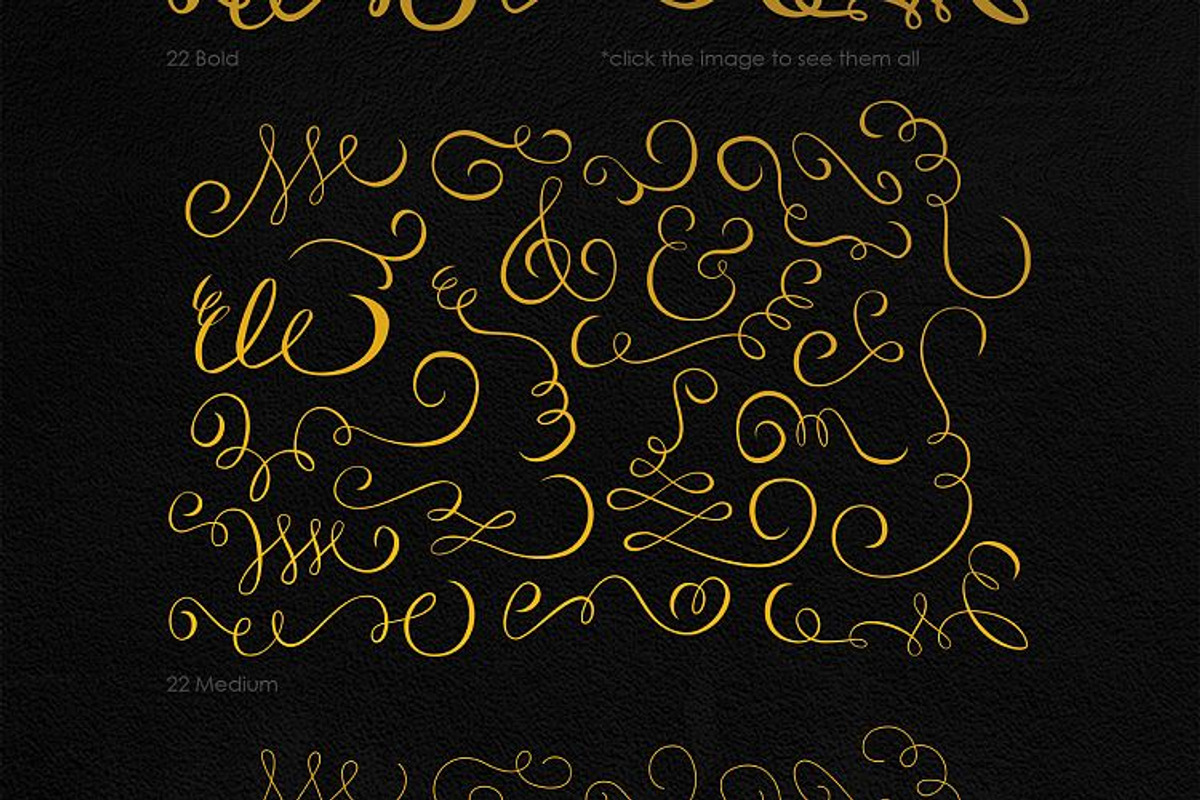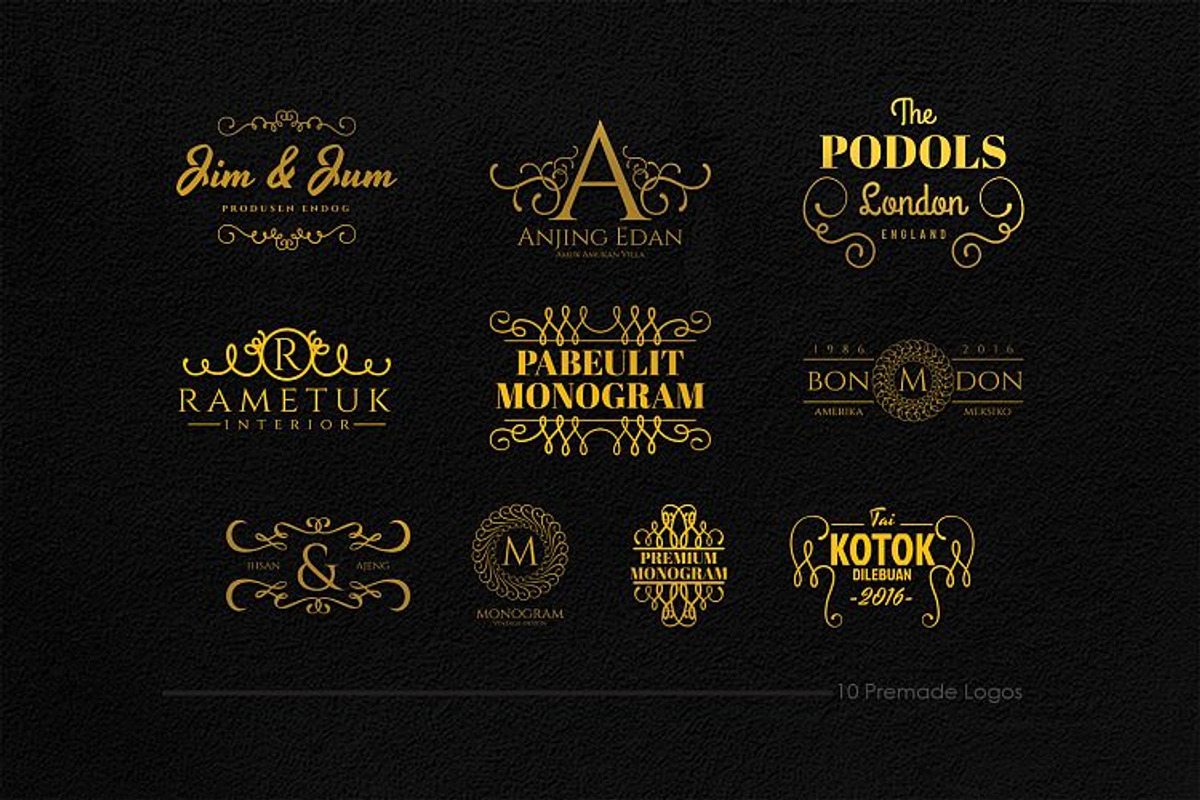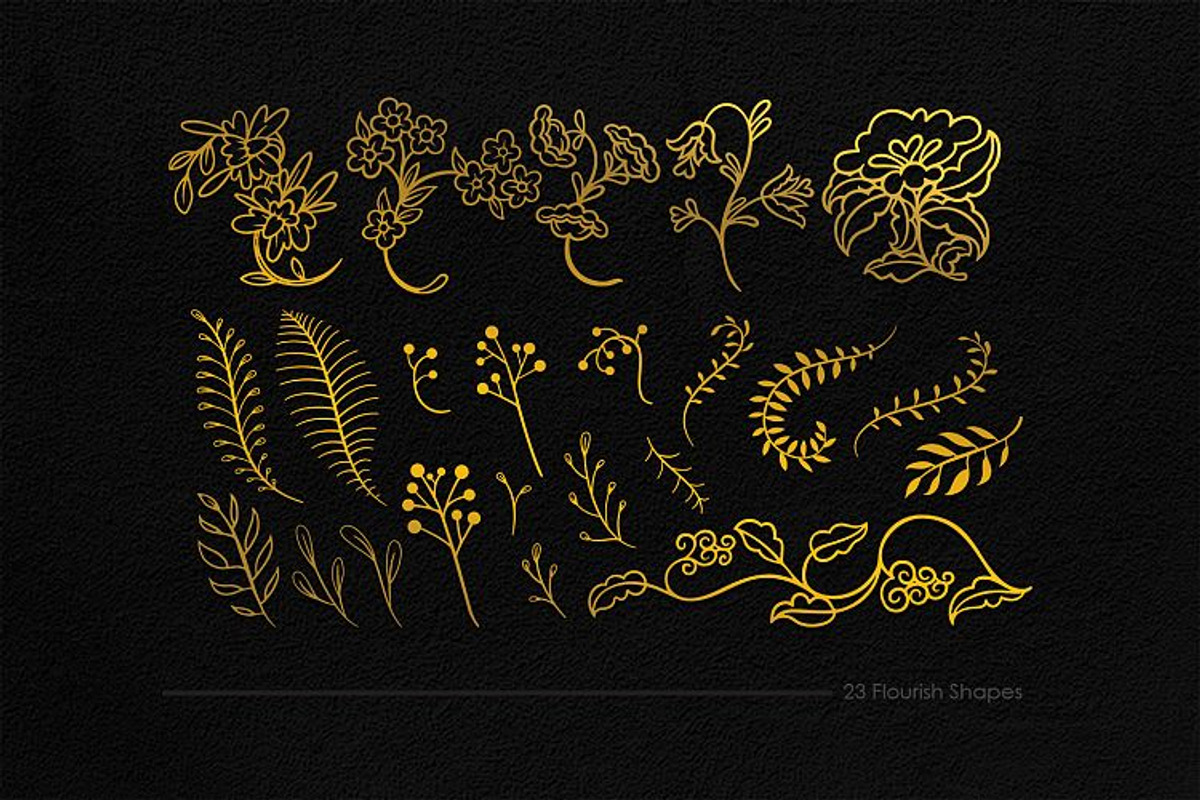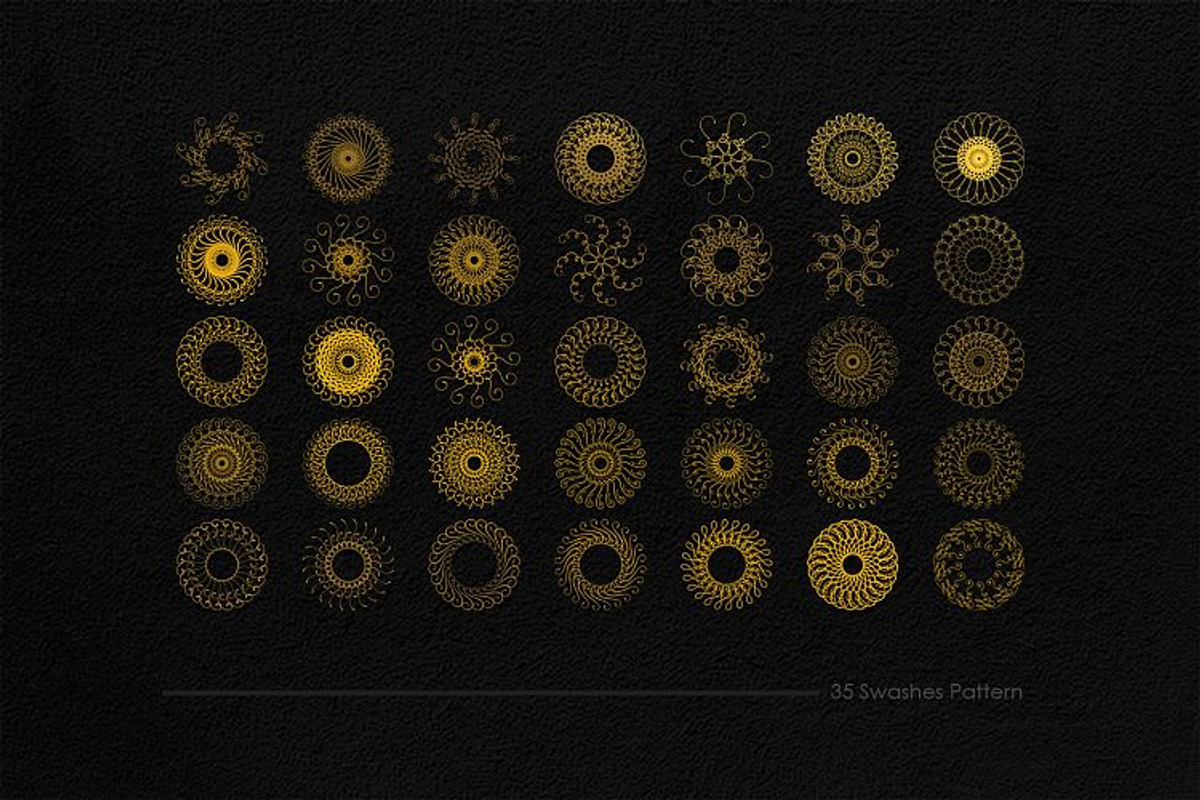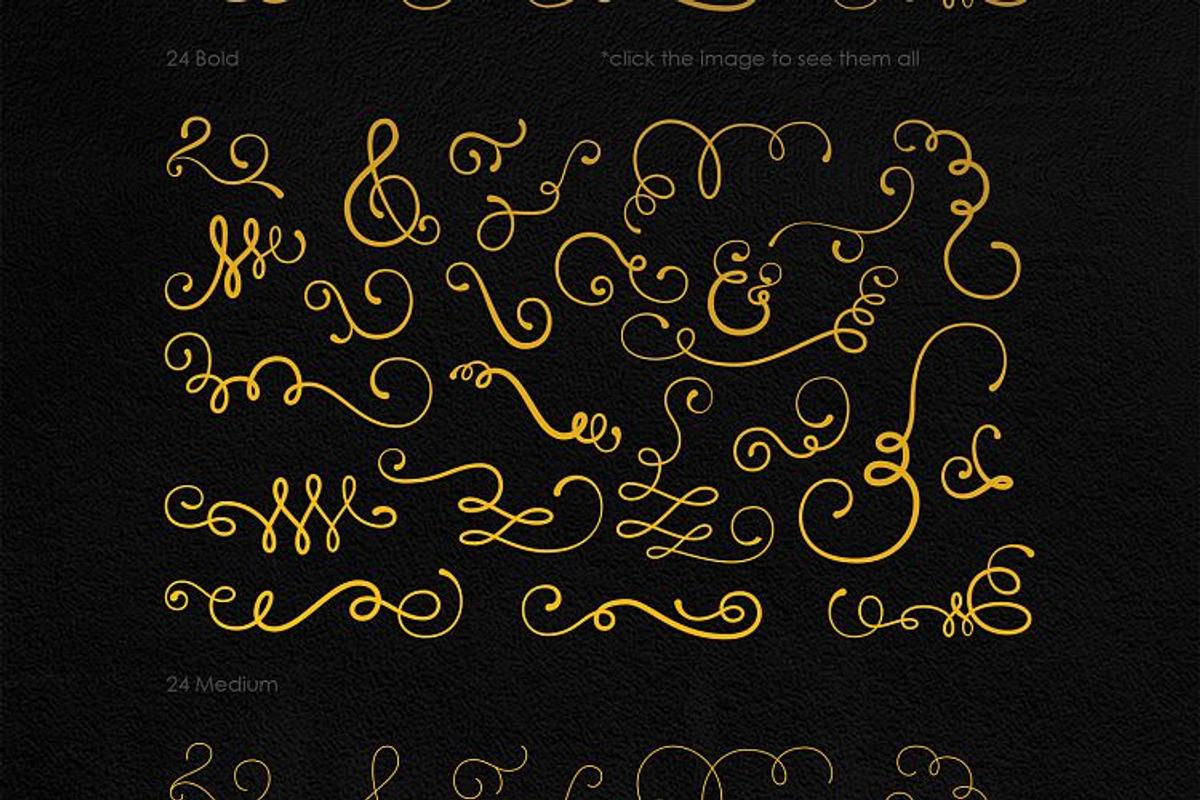
Swashes Kit / Decorative Add On Pack
Swashes Kit / Decorative Add On Pack by Font Bundles is a font selected for branding, posters, packaging, typography.
Why Swashes Kit / Decorative Add On Pack is worth a look
Swashes Kit / Decorative Add On Pack by Font Bundles fits naturally into Branding, posters, packaging, typography.